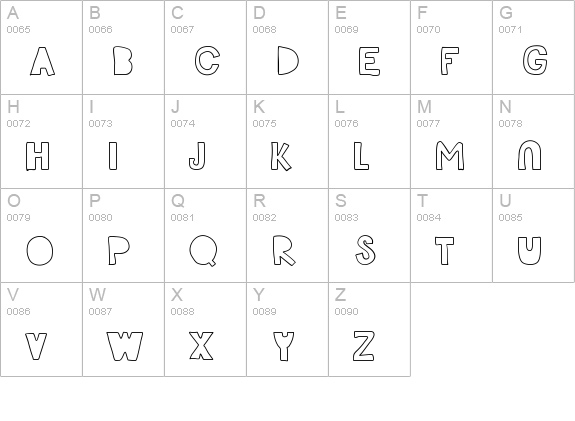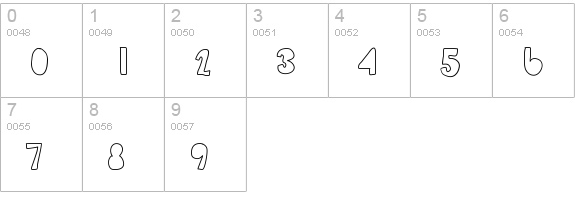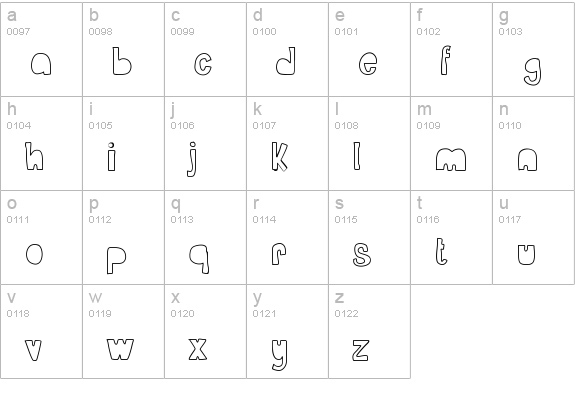
YouKnowTheMovieSong Font Details
Introducing YouKnowTheMovieSong, a captivating and versatile font that will transport you into the magical world of cinema. This font is the perfect embodiment of nostalgia, evoking the enchanting melodies and unforgettable lyrics of your favorite movie songs. Its elegant and whimsical design captures the essence of the silver screen, making it a must-have for any film enthusiast or creative soul. YouKnowTheMovieSong is not just a font; it's a journey through the iconic soundtracks that have touched our hearts and stirred our emotions. With each letter and character, it pays homage to the power of music in storytelling, reminding us of the profound impact melodies can have on our lives. But what sets YouKnowTheMovieSong font apart is not just its artistic allure; it's also the fact that it is freely available to download at FontsMarket.com. Yes, you heard it right – this extraordinary font can be yours without any cost. Whether you're a designer, a filmmaker, a writer, or simply a lover of beautiful typography, YouKnowTheMovieSong font is at your fingertips, waiting to be unleashed in your creative endeavors. With its wide range of characters and stylish flourishes, this font can add a touch of cinematic magic to any project. Use it in movie posters, book covers, social media graphics, or any other creative medium that calls for a dash of nostalgia and a sprinkle of whimsy. YouKnowTheMovieSong font allows you to create visually stunning and captivating designs that will transport your audience to the golden age of cinema. So, don't miss out on this incredible opportunity to own a font that awakens the spirit of your favorite movie songs. Download YouKnowTheMovieSong font today from FontsMarket.com and let your creativity soar to new heights. Remember, the best things in life are free, and this font is a testament to that. Unleash the power of music and typography with YouKnowTheMovieSong font – your gateway to a world of cinematic wonder.